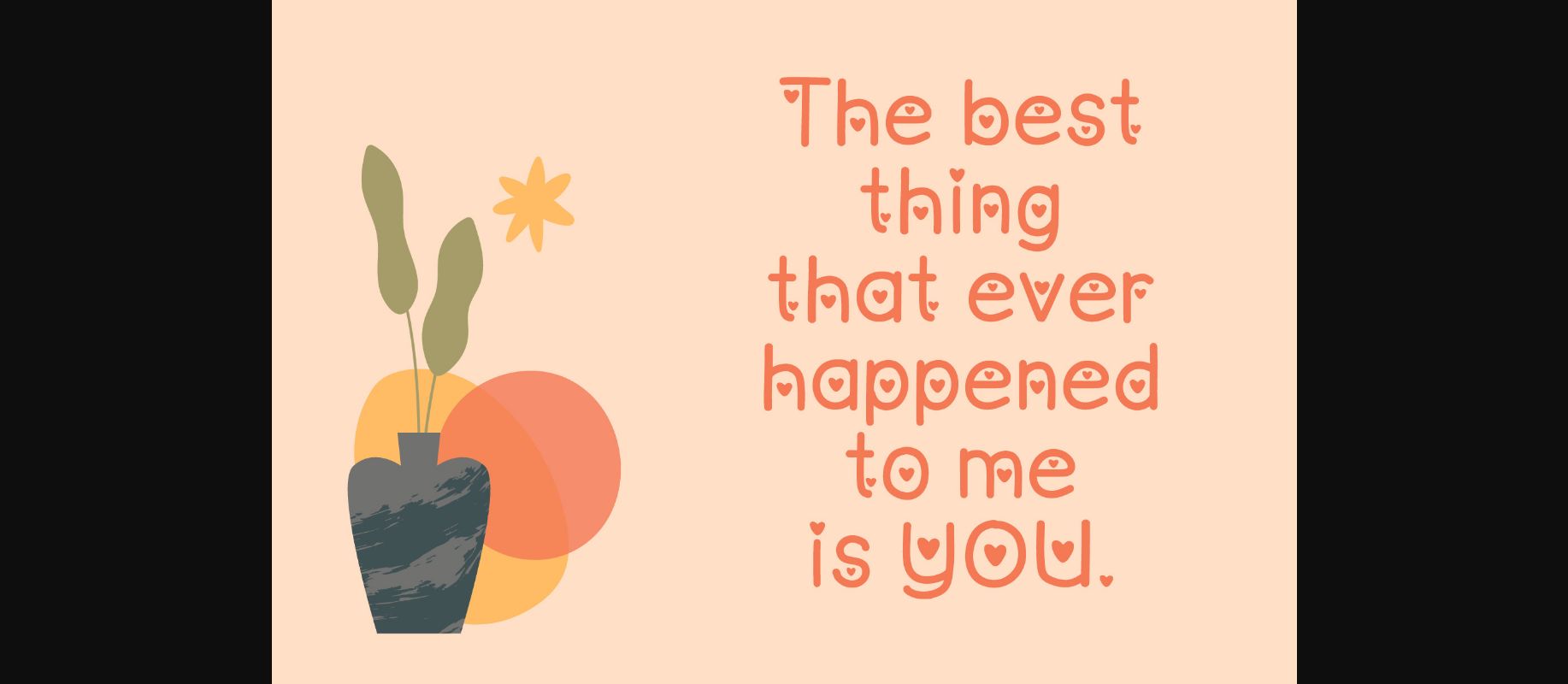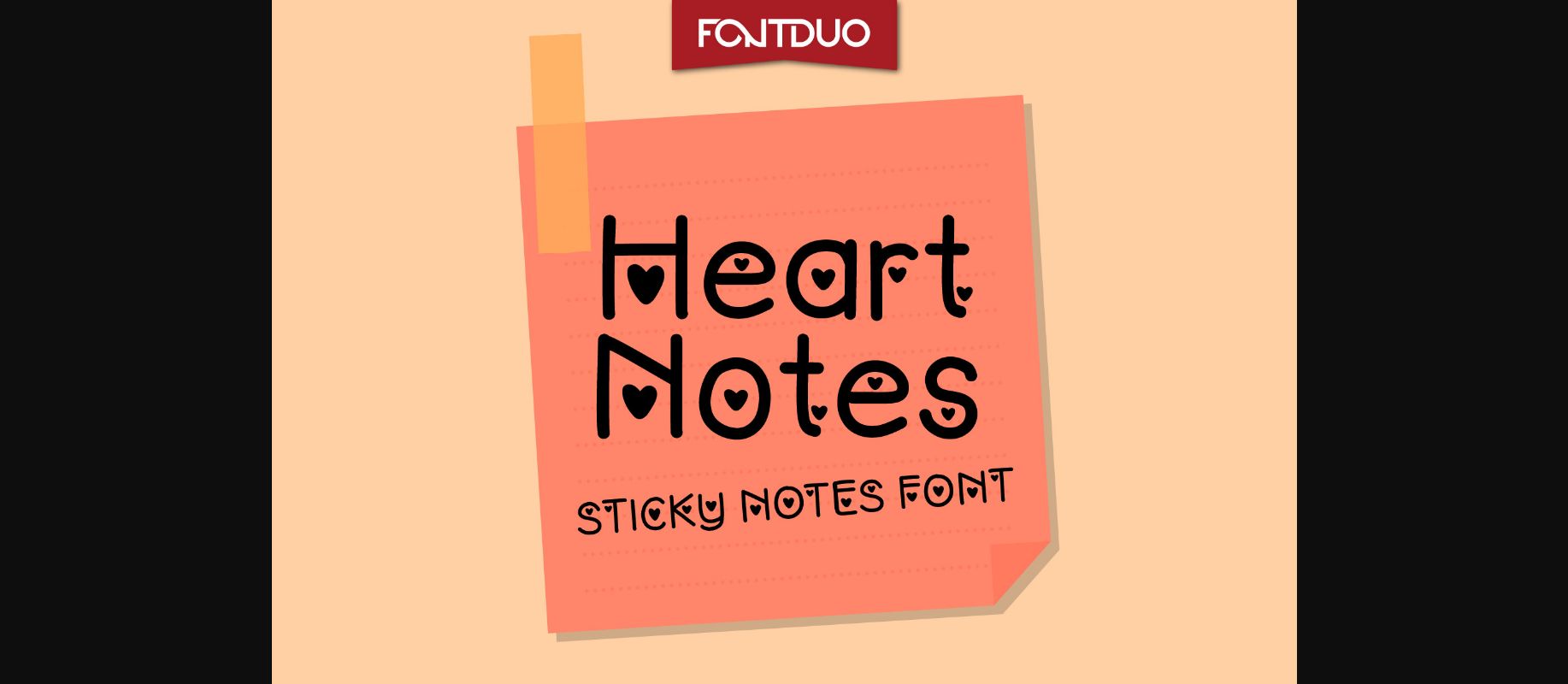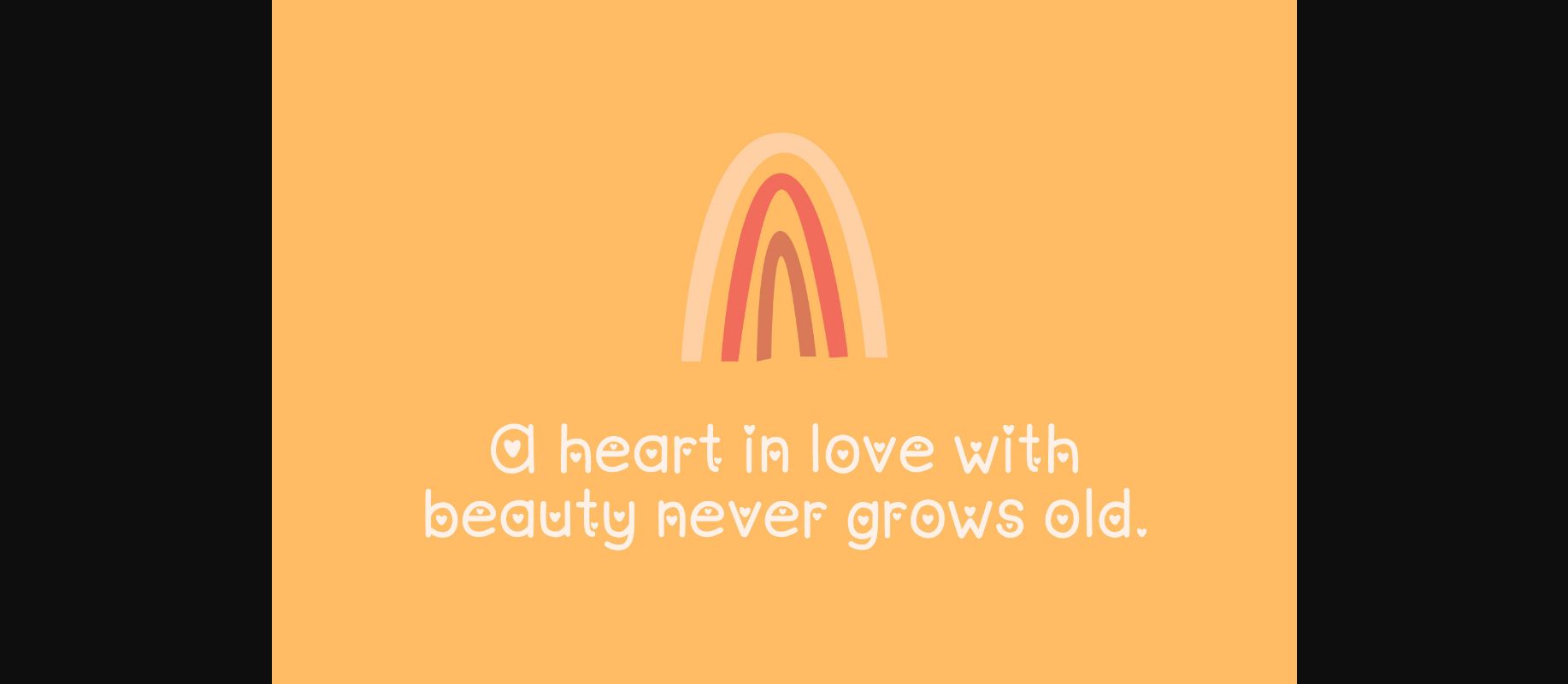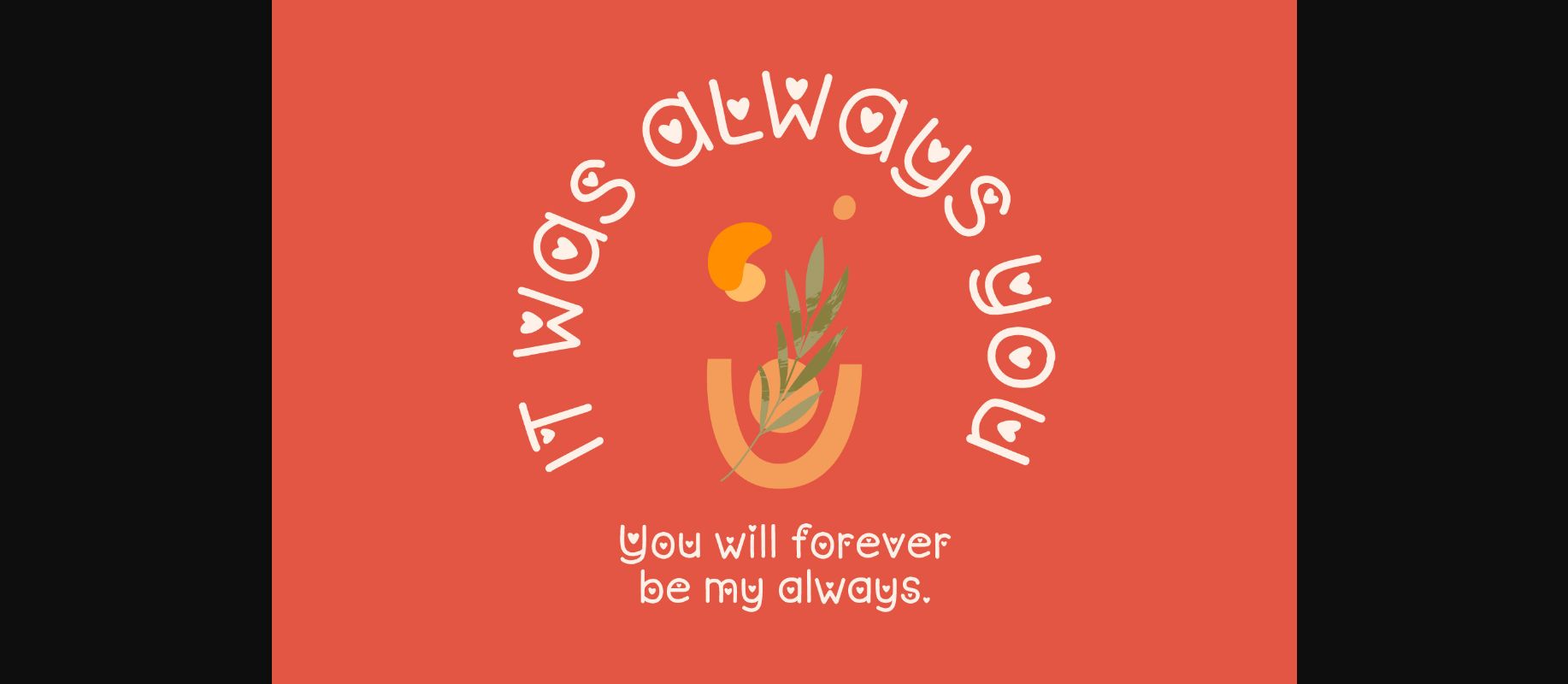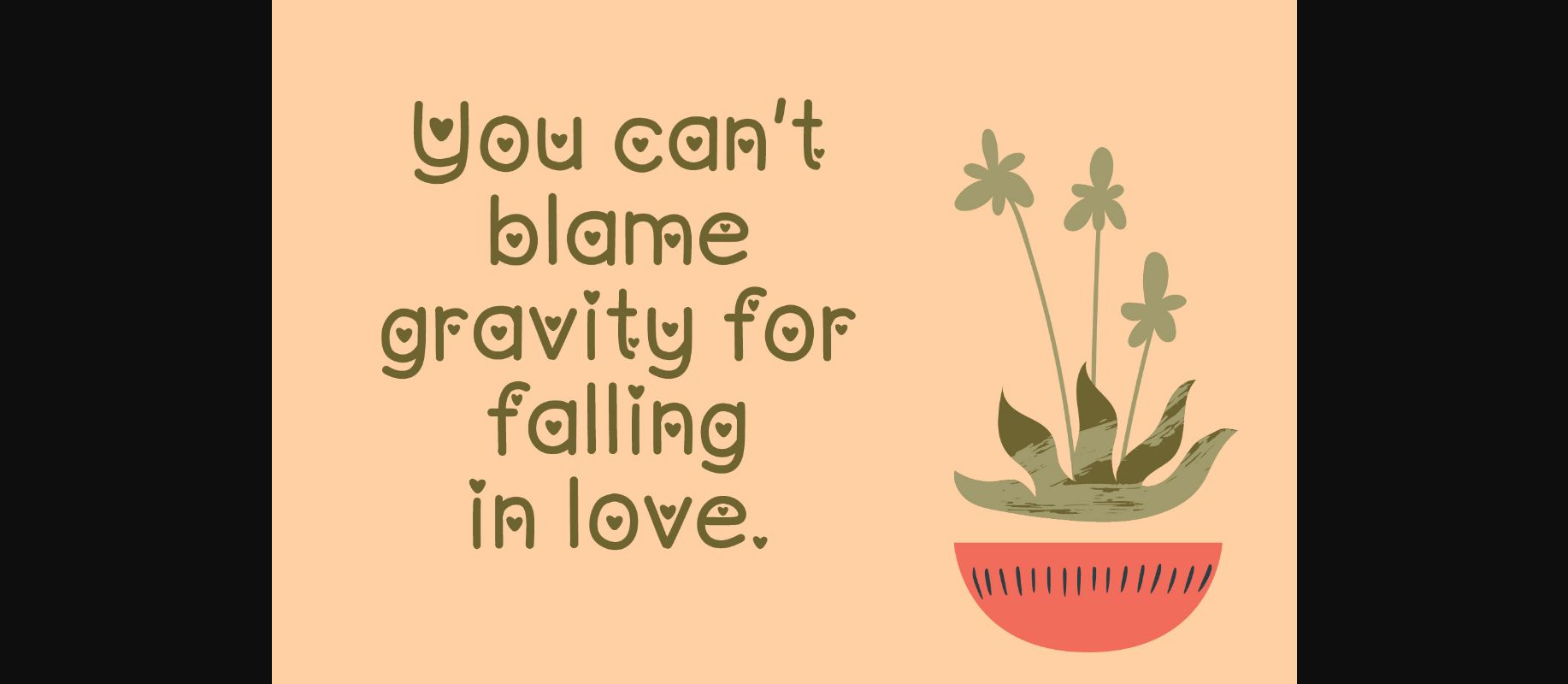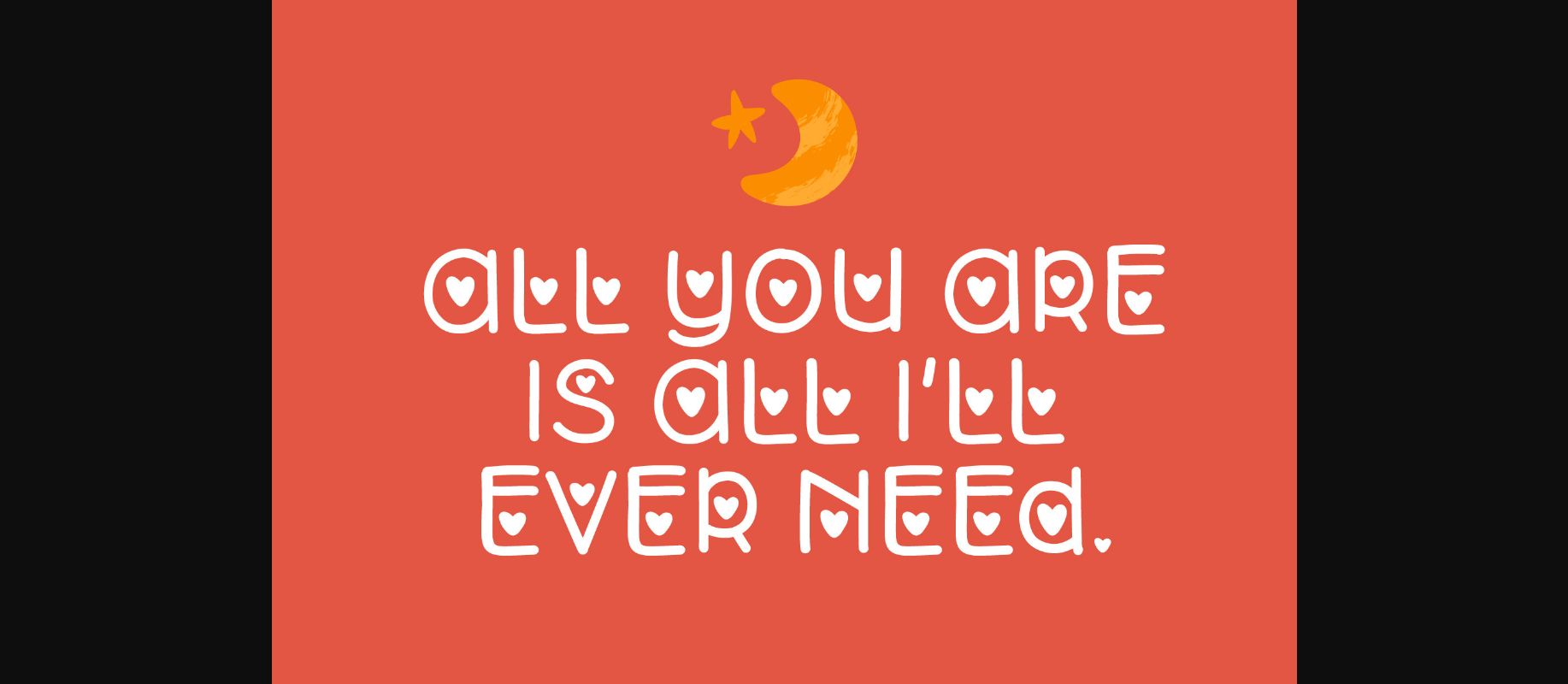
Hearts Notes Font
About Hearts Notes Font
There’s nothing cuter than a decorative font such as Hearts Notes. Its potential to elevate any creation will make this font a valuable addition to your font collection.